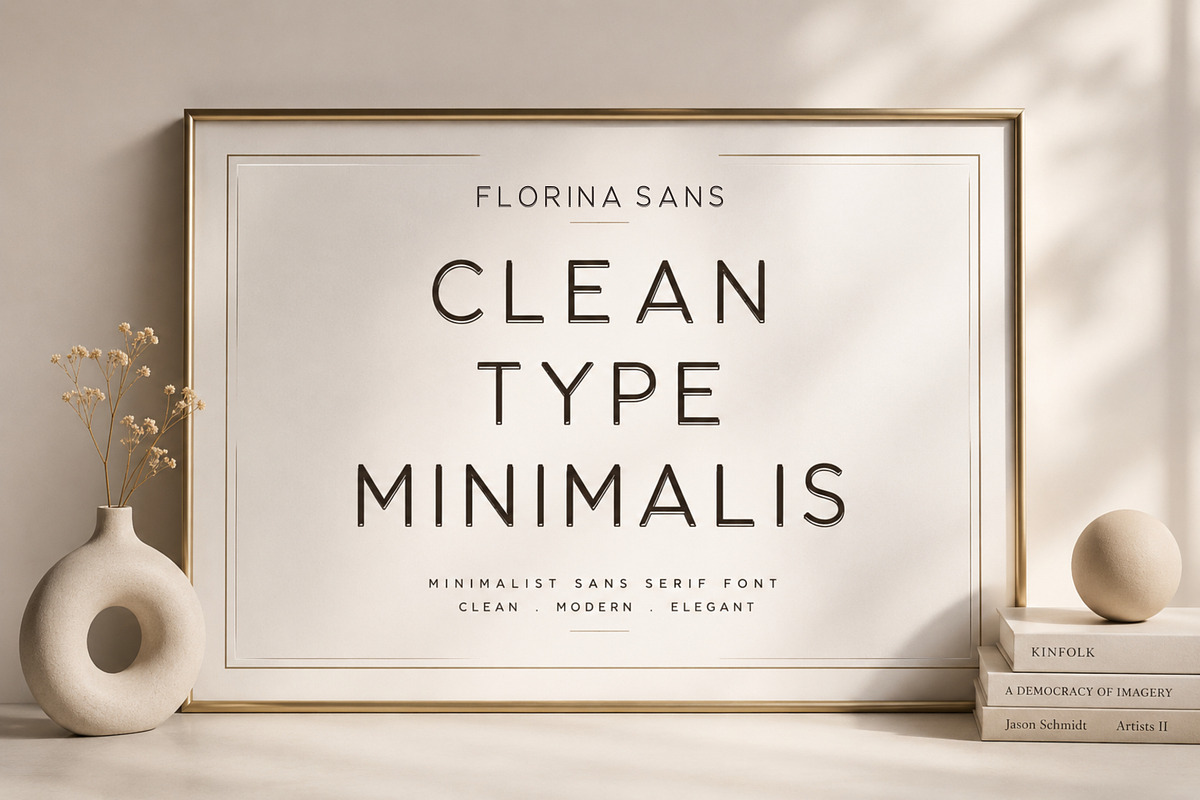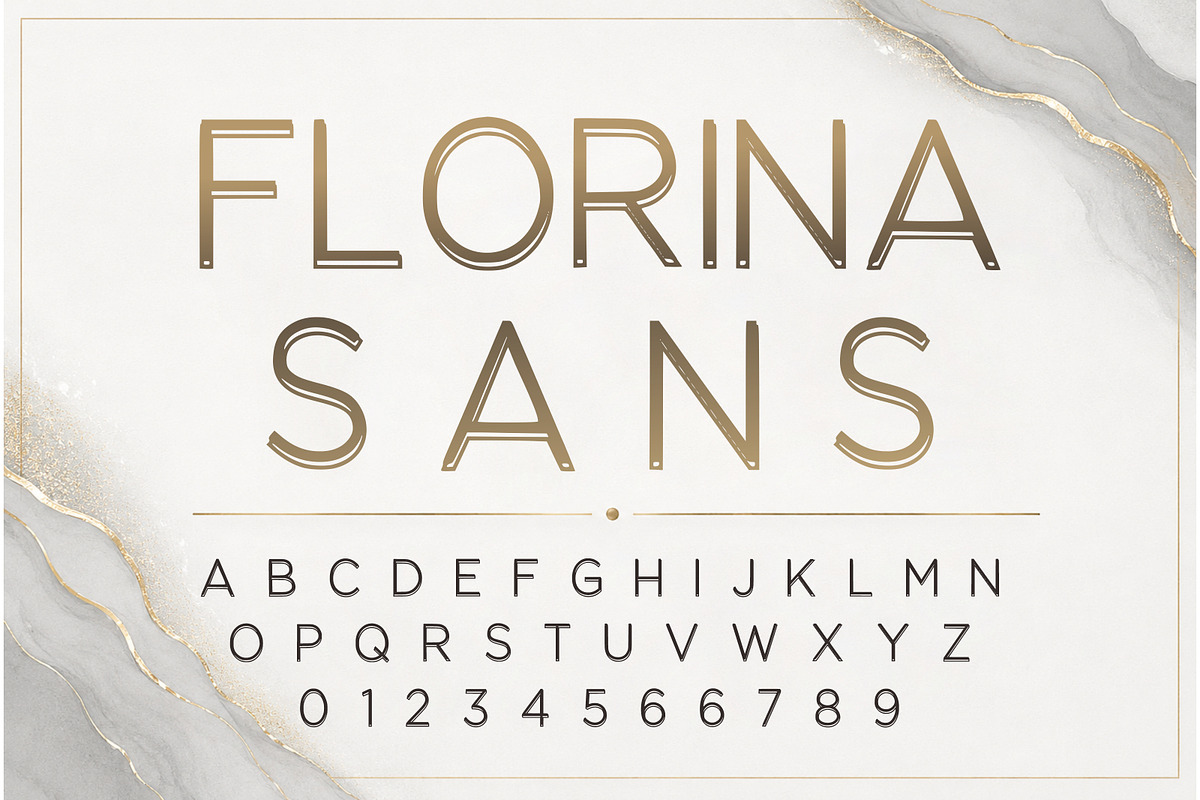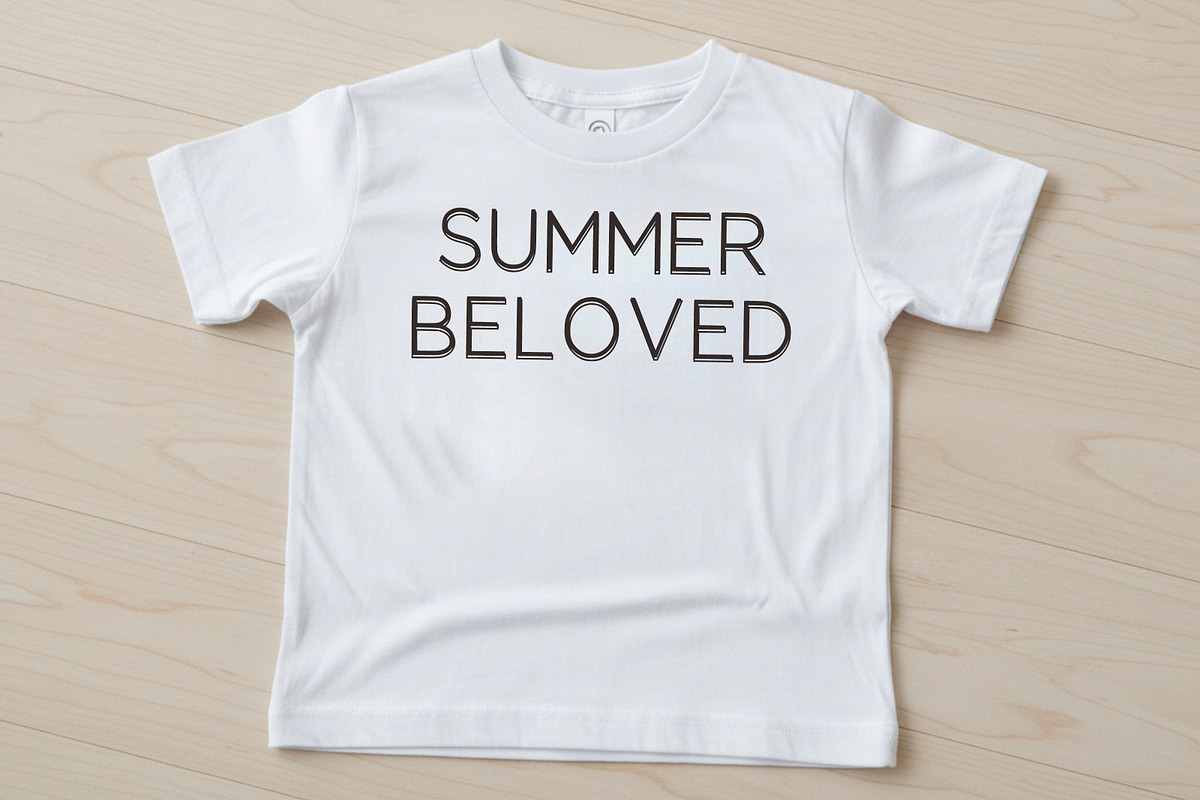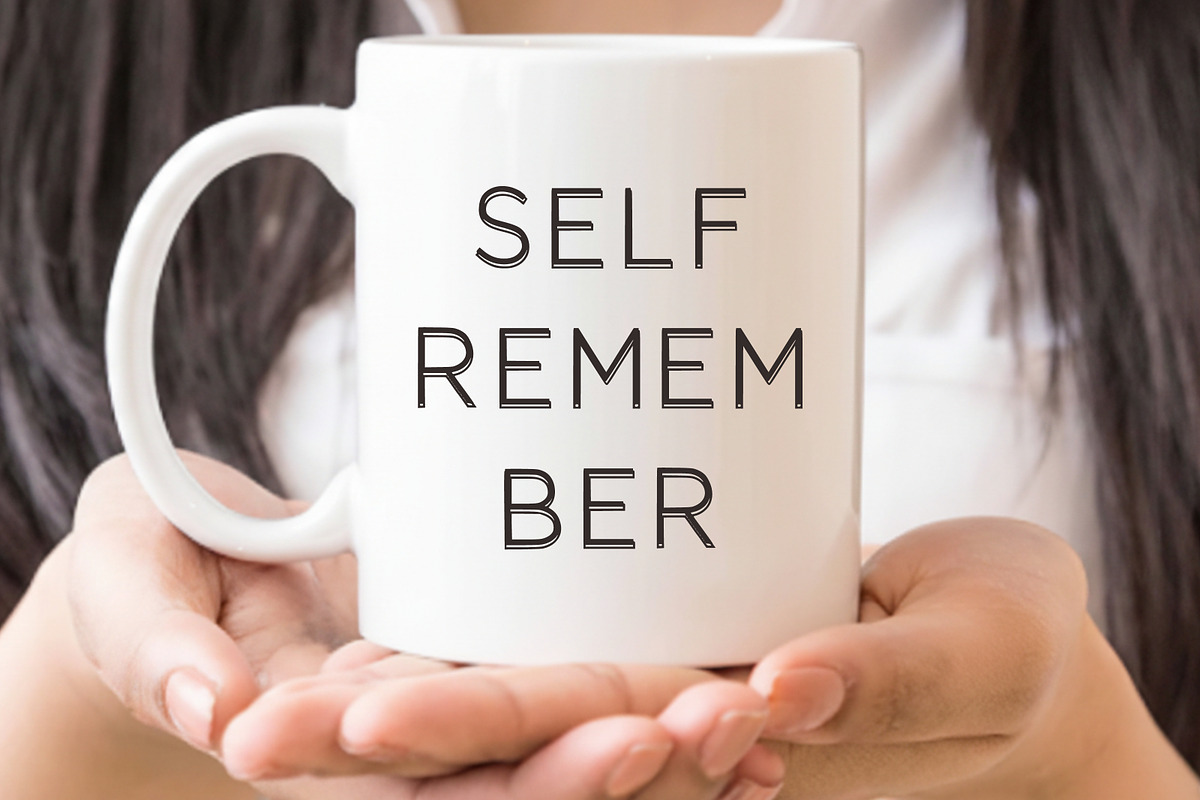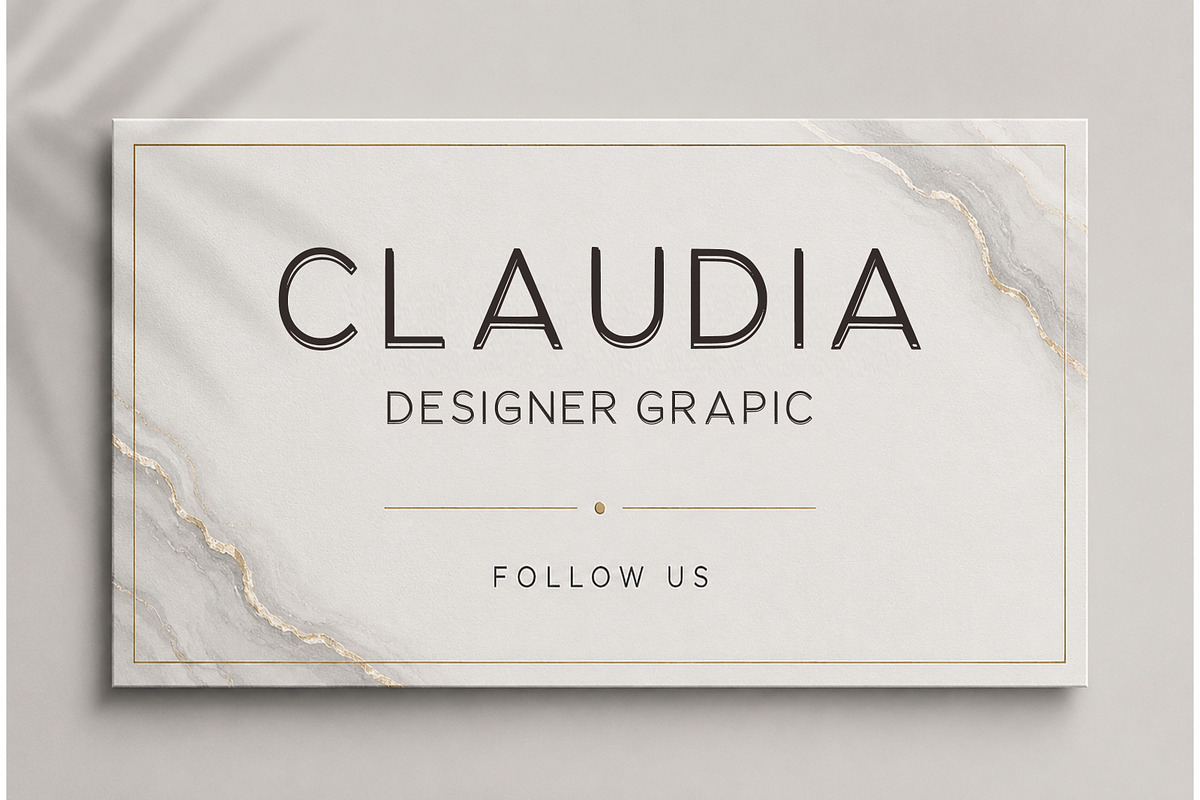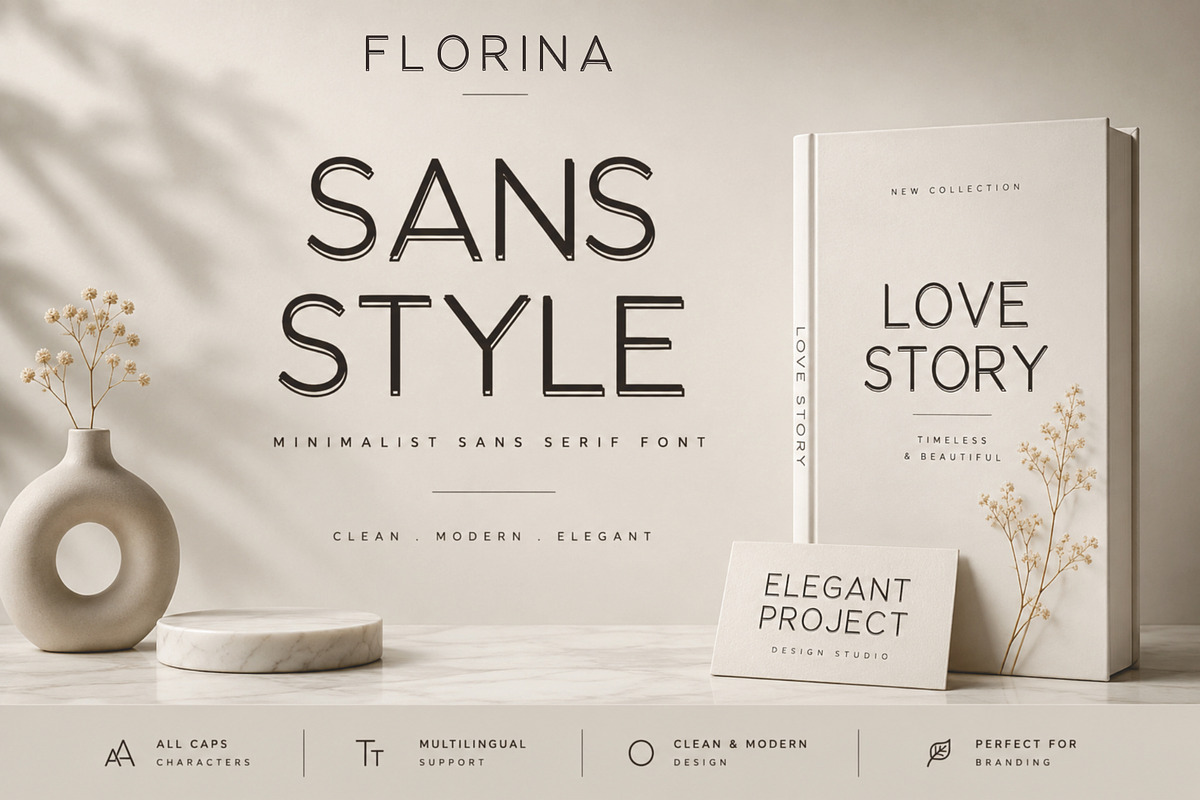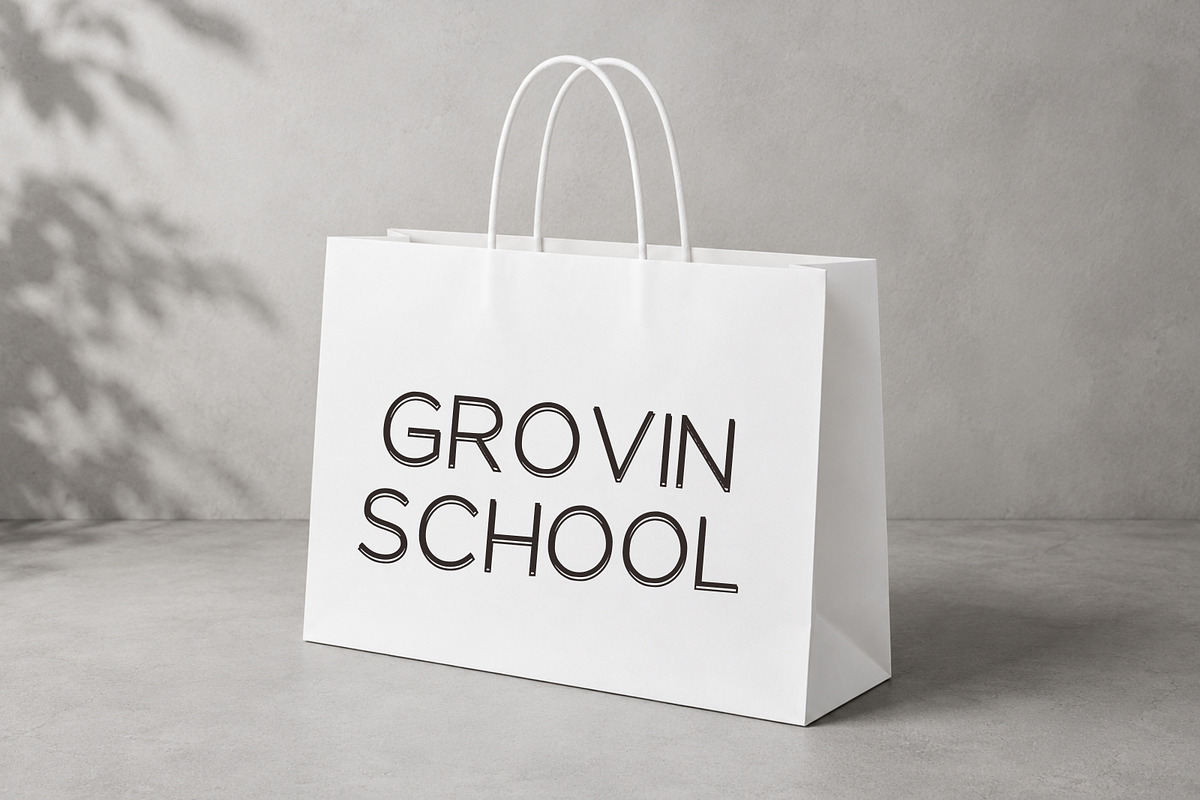
Florina Sans – Elegant Art Deco
Elevate your designs with Florina Sans, an elegant Art Deco-inspired display font that blends timeless sophistication with modern minimalism. Featuring sleek geometric letterforms, delicate line details, and refined proportions, this font is designed for luxurious branding and stylish editorial layouts.
Whether you're creating logos, wedding invitations, fashion campaigns, cosmetic packaging, boutique branding, magazines, or premium social media graphics, Florina Sans delivers a clean, upscale aesthetic that leaves a lasting impression.
Its versatile style makes it suitable for both print and digital projects, bringing elegance and professionalism to every design.
Elegant Geometric Style